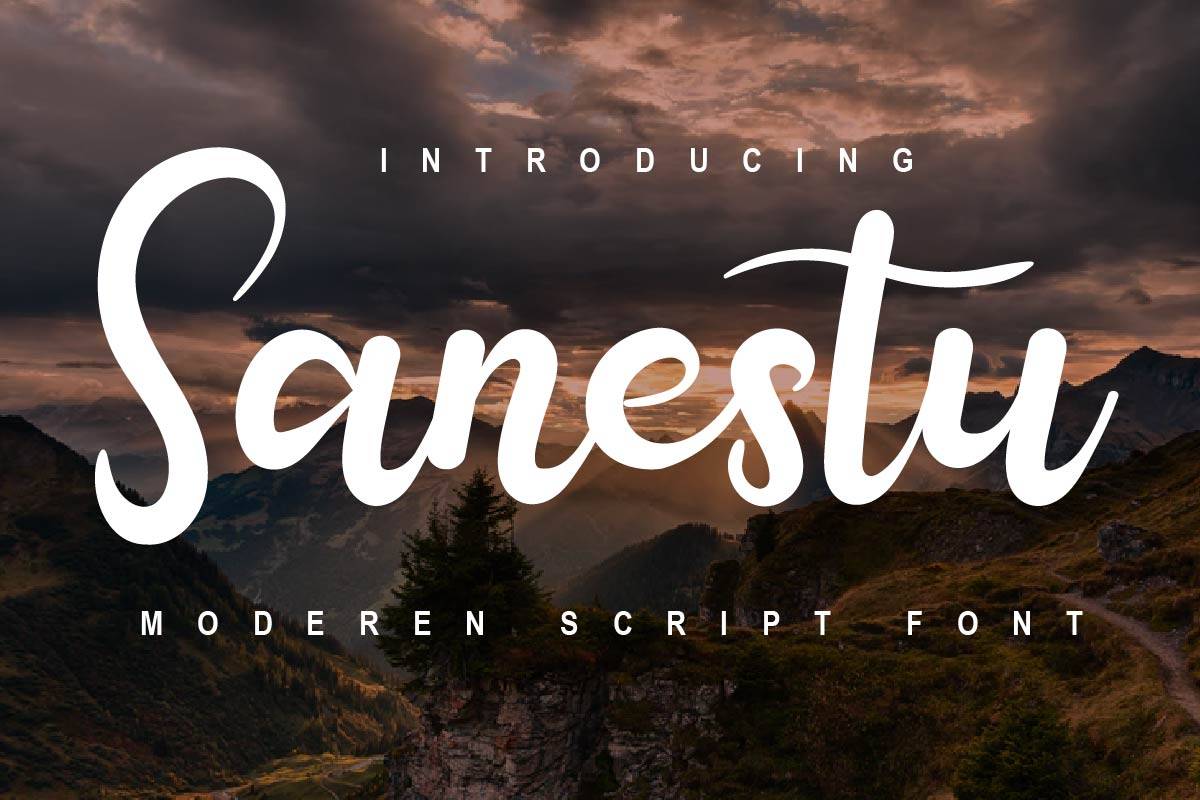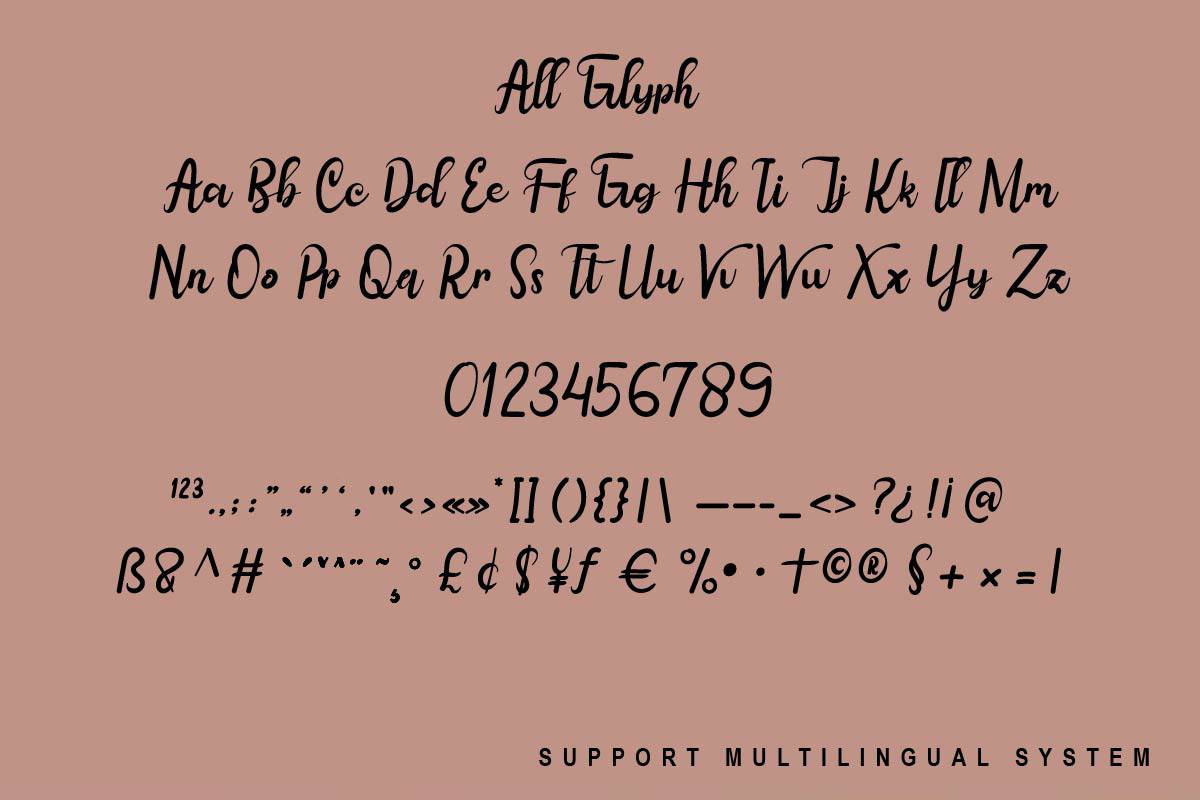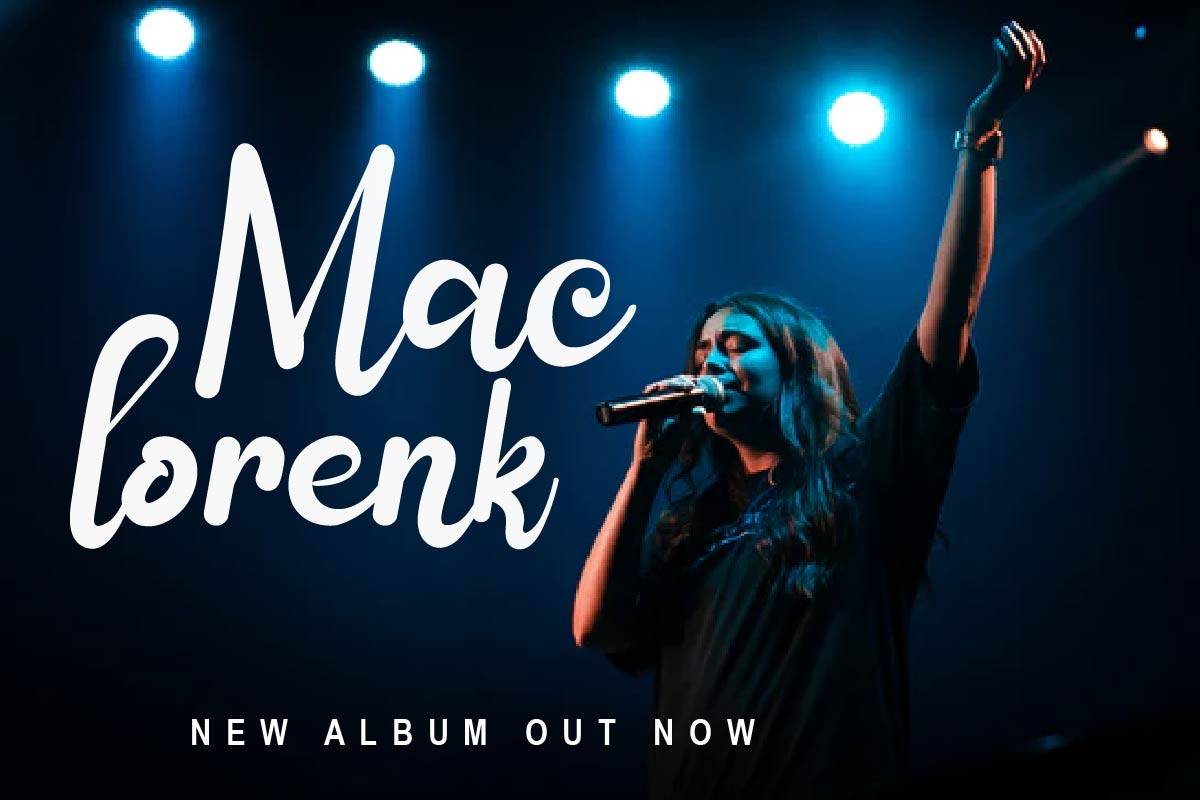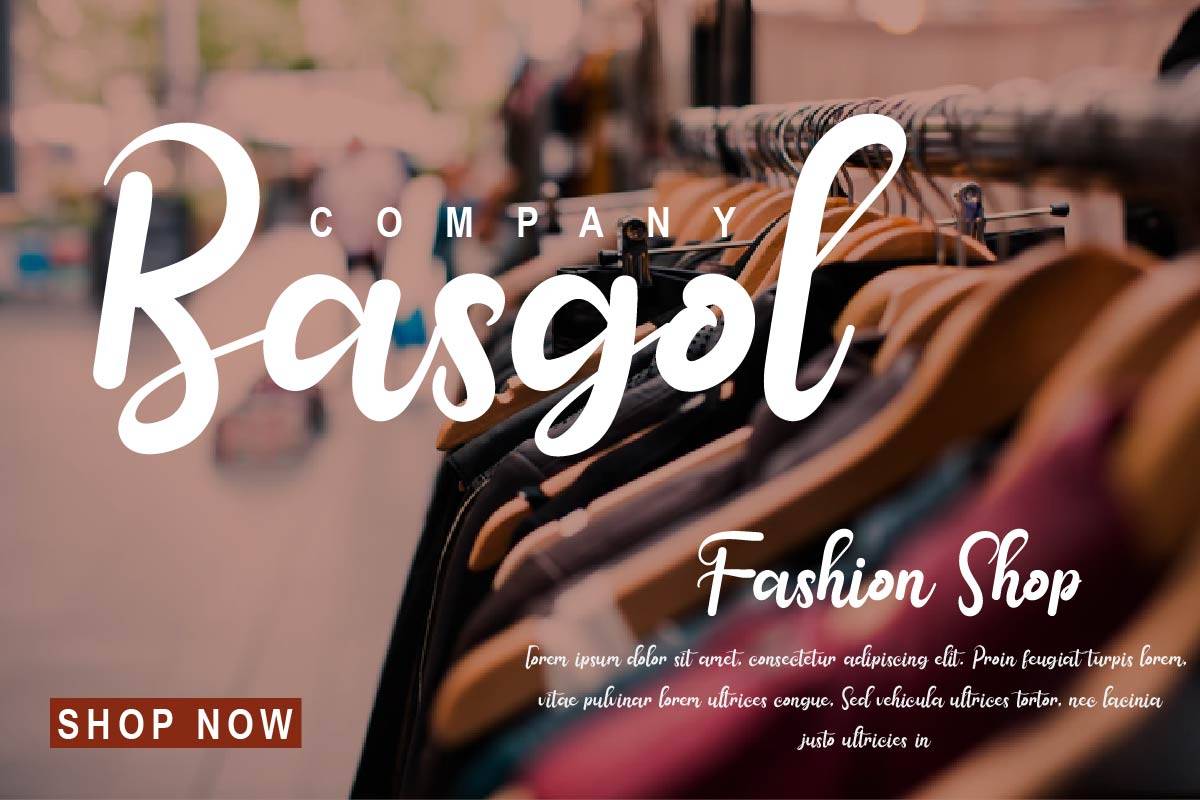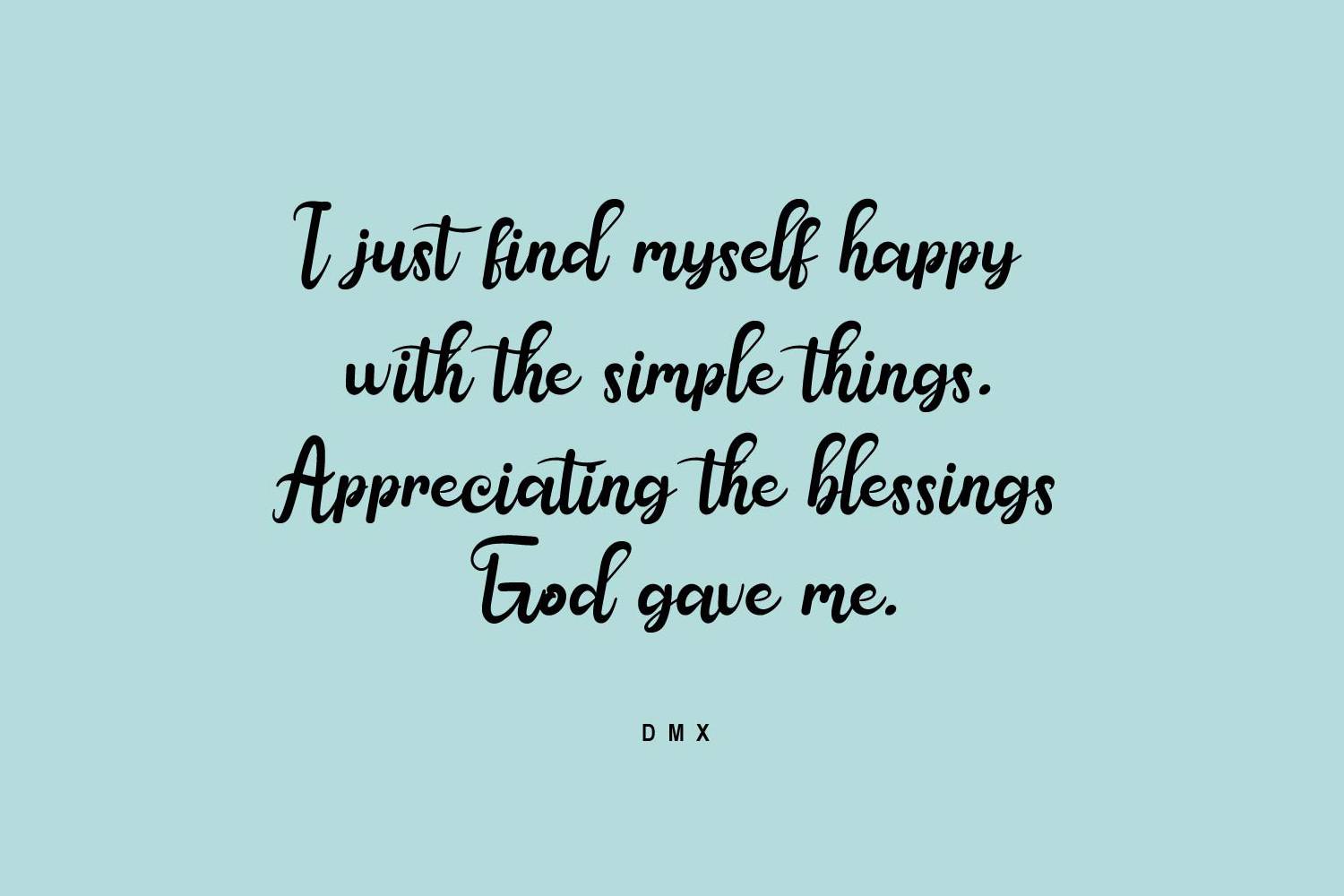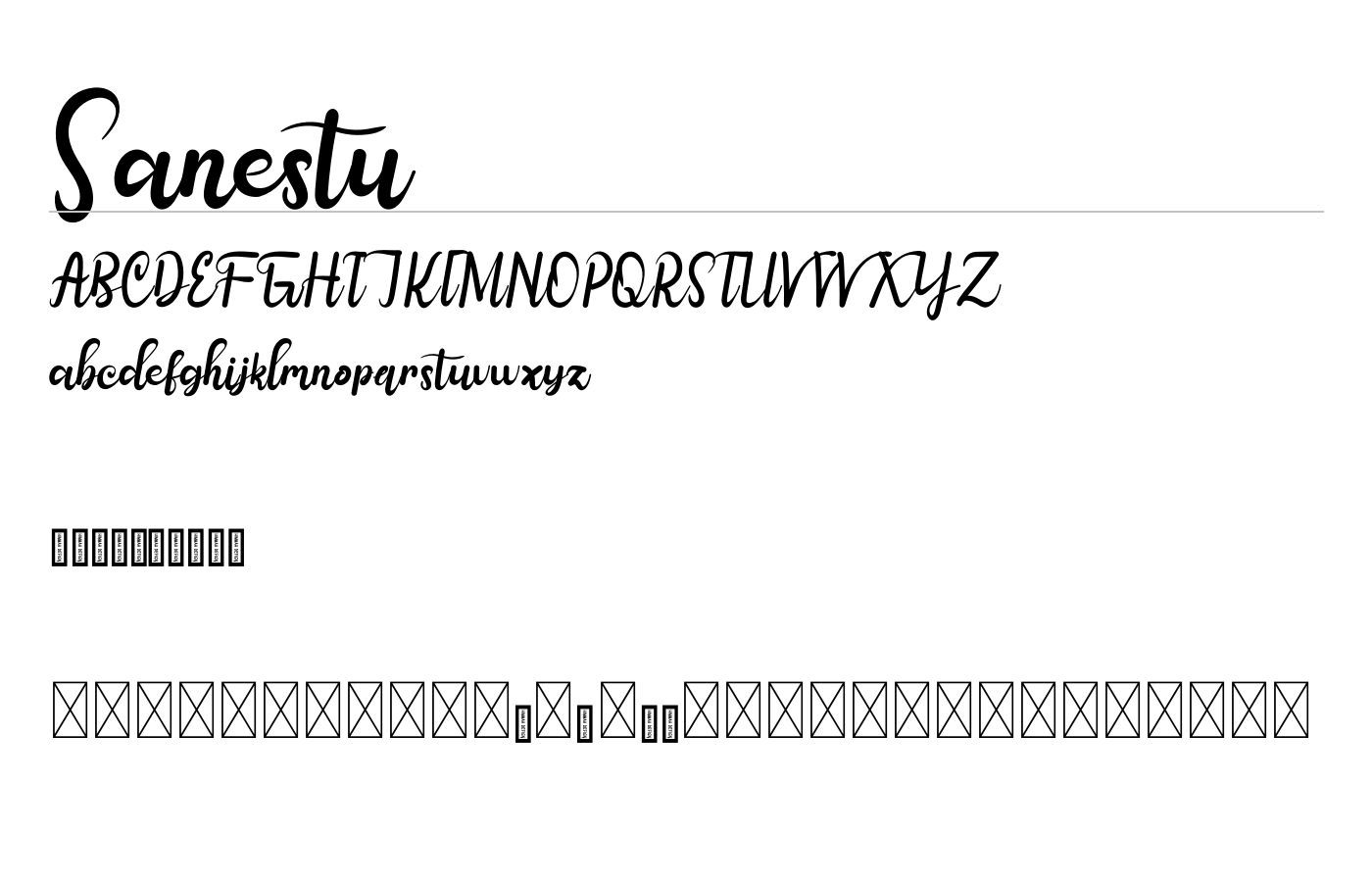
Sanestu is a lively script font with a bold and playful character, featuring smooth, brush-like strokes and a casual handwritten feel. Its expressive uppercase letters and connected lowercase form make it perfect for creative branding, invitations, and display use where a friendly and energetic vibe is desired. This font works well in designs seeking to combine a personal touch with bold visibility.
| Font family | Sanestu Font |
| Designer | Khamdan Ngabdul Khakim |
| Trademark | himmahdesign™ |